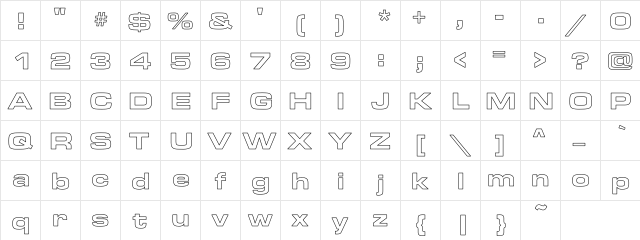
Emerson Extended Hollow Regular
Design Context for Emerson Extended Hollow Typeface
Emerson Extended Hollow offers clean, dependable letterforms without strong stylistic allegiance, making it a practical choice for designers who need flexibility.